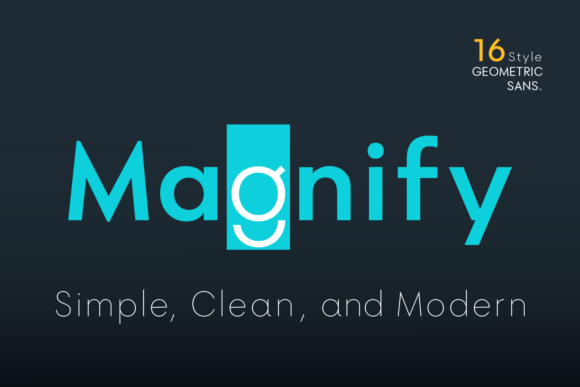
**Unleash the Power of Precision: Introducing Magnify - The Font Synonymous with Professionalism**
In a world where clarity and finesse reign supreme, Magnify emerges as the ultimate font for the discerning professional. Crafted by the visionary minds at xdCreative, Magnify is a geometric sans serif font that embodies sophistication, minimalism, and the unwavering pursuit of perfection.
Magnify's meticulously engineered letterforms exude an air of confidence and authority, making it the ideal choice for conveying important messages with impact. Its clean lines and sharp angles create a visually striking presence that commands attention without overpowering the content it adorns.
But Magnify is more than just a visually appealing font. It's a versatile workhorse that adapts seamlessly to a wide range of design applications. Whether you're creating stunning logos, eye-catching headlines, informative brochures, or engaging presentations, Magnify rises to the occasion, delivering exceptional results every time.
With its eight carefully calibrated weights, ranging from Hairline to Bold, Magnify offers a wealth of options to suit your diverse design needs. And to add a touch of intrigue and creativity, Magnify introduces special alternate characters for select letters, allowing you to infuse your designs with a unique and captivating flair.
With Magnify at your creative disposal, you'll discover a font that's not just another tool in your arsenal—it's a trusted partner that elevates your designs to new heights of excellence. Experience the transformative power of Magnify today and witness your projects blossom into masterpieces of professionalism and sophistication.